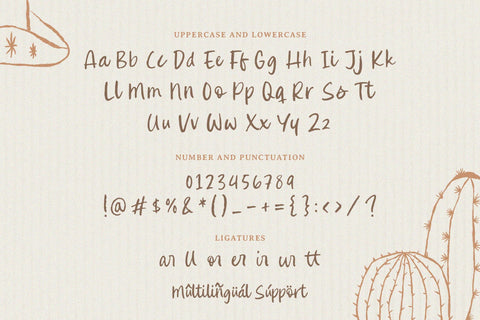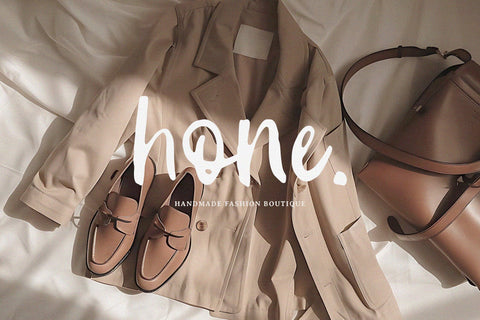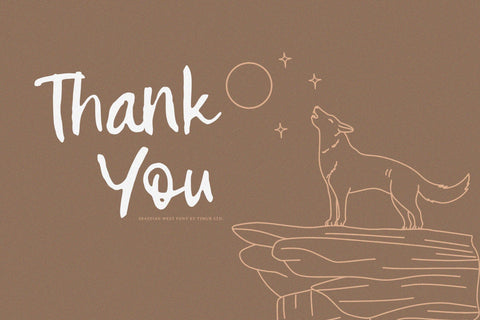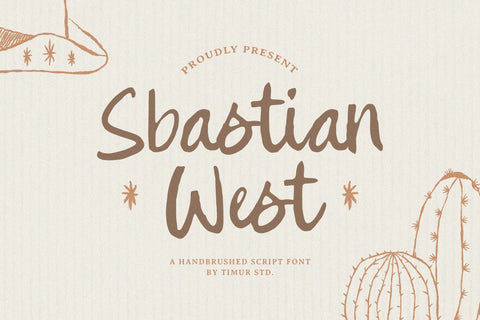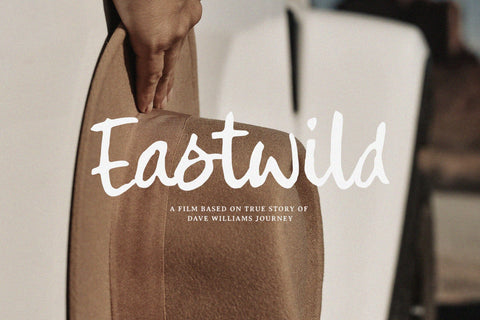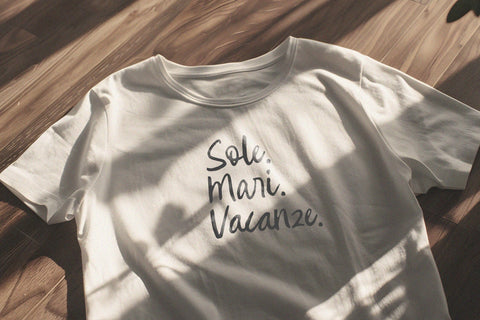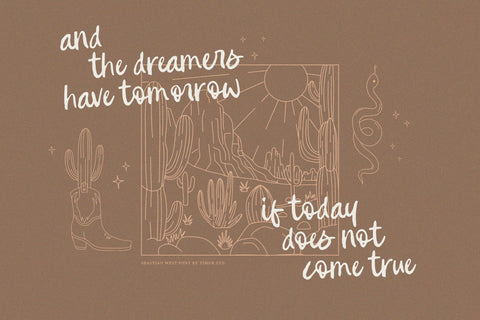
Sbastian West - Handbrushed Script Font
Sbastian West is a Handbrushed Script Font
This font is a charming handbrushed script font that exudes a relaxed, artistic flair. Its fluid, flowing lines and expressive strokes create a sense of spontaneity touch, making it perfect for adding a unique, handcrafted feel to invitations, branding, and creative projects. The combination of elegance and casual ease in Sbastian West ensures it stands out while maintaining a warm, approachable vibe.
Sbastian West also supports multilingualism